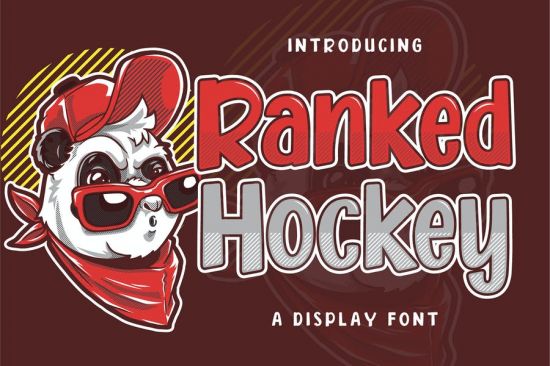
Ranked Hockey is a stylish display font for a variety of designs. Ranked Hockey can be used for products such as handcraft, product packaging, quotes, product design, craftsmen, labels, photography, watermarks, logos & branding. Everything can be accessed using software that supports Opentype, such as Adobe Indesign, Adobe CS Illustrator, Adobe Photoshop CC, and Corel Draw.